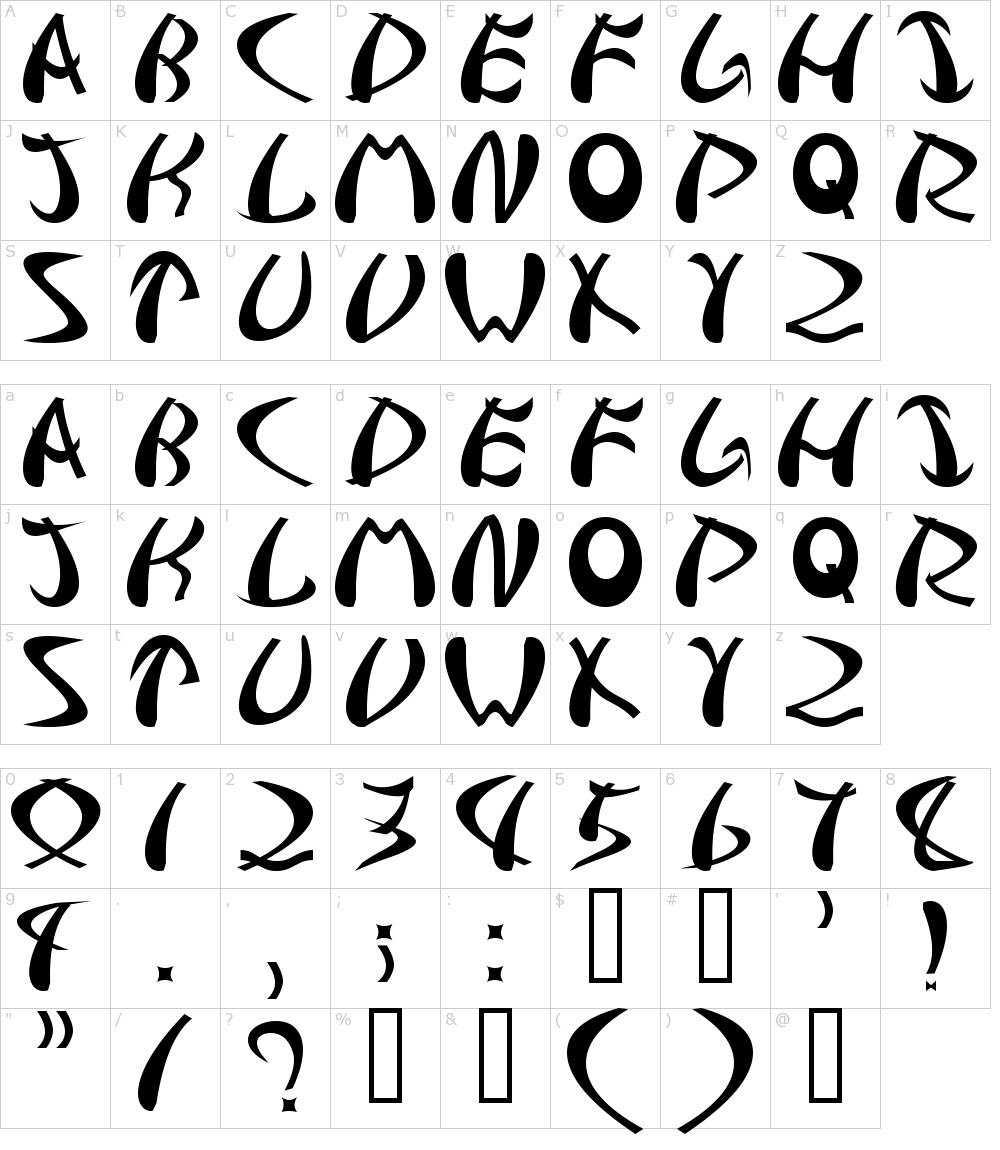
Royal samurai € by iconian fonts. The font is free for both personel and commercial usages. Samurai is an incredibly unique, japanese inspired display font.